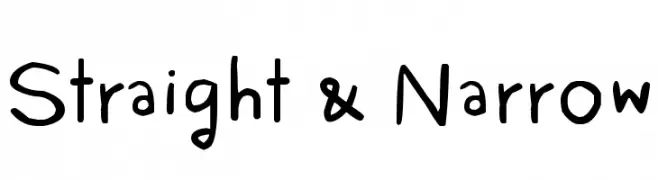
A playful, handwritten font with a casual and friendly style.
A playful, informal handwritten font with a casual and free-flowing style.
A playful, casual handwritten font with uneven strokes and a lively feel.
A playful, handwritten-style font with a friendly and informal appearance.